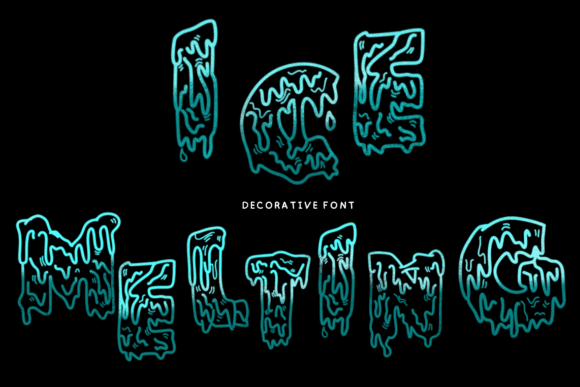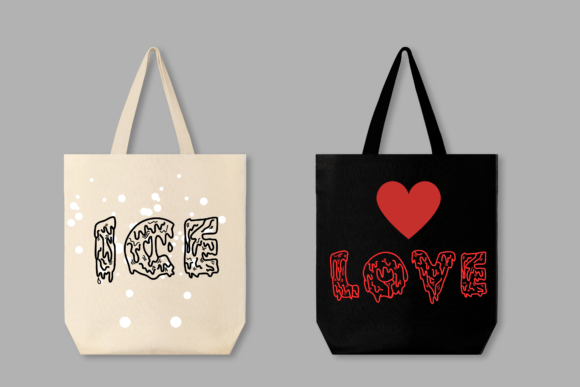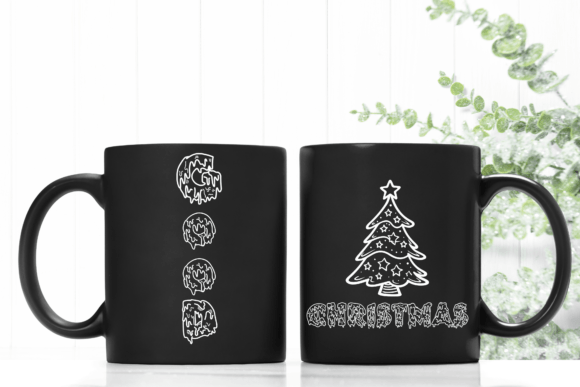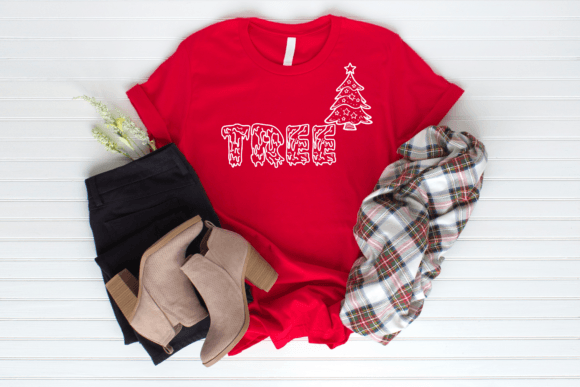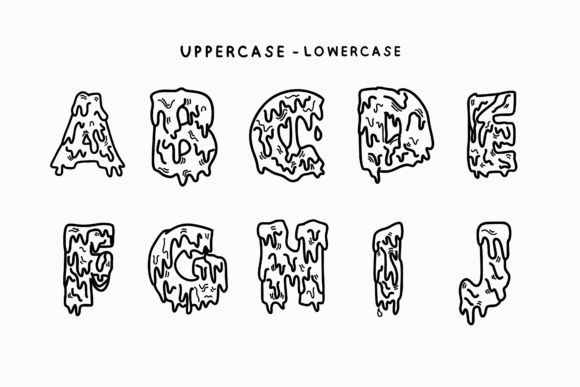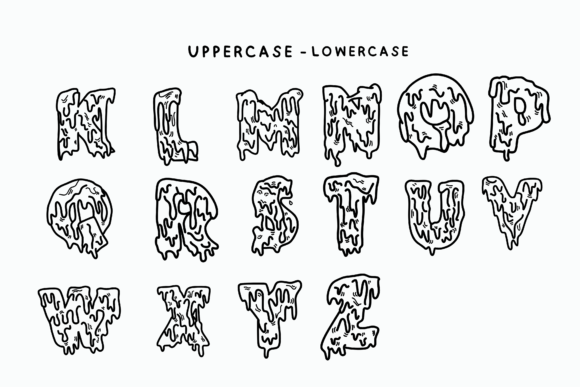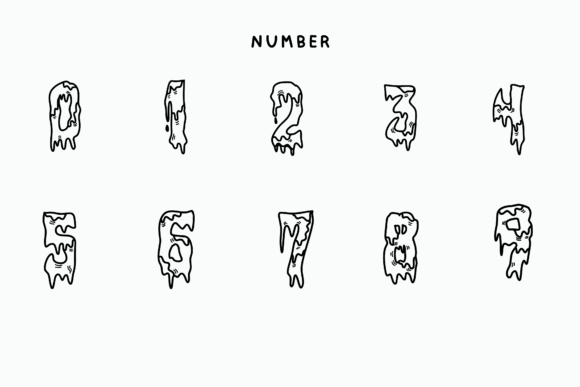
Discover the Magic of Ice Melting Font
Have you ever stared at a blank design canvas, searching for the perfect font to bring your vision to life? You know the moment when everything clicks, and you can almost see your design taking shape? For designers, that ‘aha’ moment is what drives us to create something truly special. And, trust us, we’ve found the perfect tool to make that happen – the enchanting Ice Melting Font.
This modern yet whimsical font is not just a pretty face; it’s a game-changer for designers looking to add a touch of magic to their work. With its unique, melting ice-inspired design, it’s the perfect way to transport your audience to a world of wonder. Whether you’re working on a branding project, creating a children’s book, or designing a website, the Ice Melting Font is sure to leave a lasting impression.
Key Features of “Ice Melting Font”
- Unique Characteristics: The “Ice Melting Font” features a unique, hand-drawn design that gives the impression of melting ice. The font includes intricate details and textures that create a sense of movement and depth.
Review of “Ice Melting Font”
At first glance, “Ice Melting Font” seems like a fun and quirky addition to any design project. ✨ The font’s unique, melting-ice aesthetic could add a touch of whimsy to a logo or branding material. I particularly appreciate the variety of font styles available, each with its own distinct flavor.
However, upon closer inspection, I noticed a few limitations. ⚠️ The font’s design can feel a bit overwhelming, especially when used in large quantities. The melting effect can become distracting and difficult to read, especially for body text. Additionally, the font’s file size is quite large, which can impact website loading times.
Key Points:
- Unique and fun design aesthetic
- Multiple font styles available
- Can be overwhelming and difficult to read in large quantities
Overall, “Ice Melting Font” is a solid choice for designers looking to add some visual interest to their projects. While it may not be suitable for all applications, it’s a great option for logos, social media graphics, or other promotional materials where a bit of whimsy is called for.
1. Experiment with different font sizes and styles to create a visually appealing design.
2. Use the Ice Melting Font in conjunction with other winter-themed graphics and images.
3. Consider using the Ice Melting Font for titles and headings to create a cohesive look.
1. Winter-themed designs and graphics.
2. Holiday-themed designs and graphics (e.g. Christmas, New Year’s).
3. Ice and snow-related designs and graphics (e.g. ice skating, snowboarding).